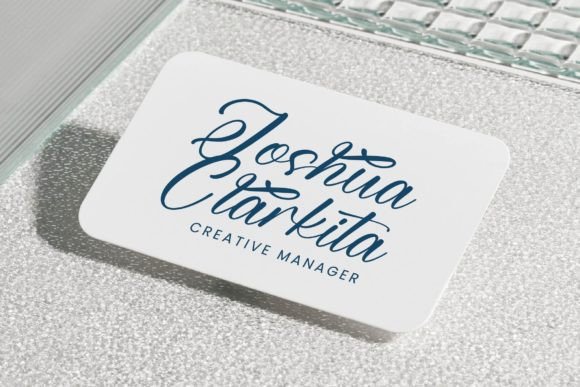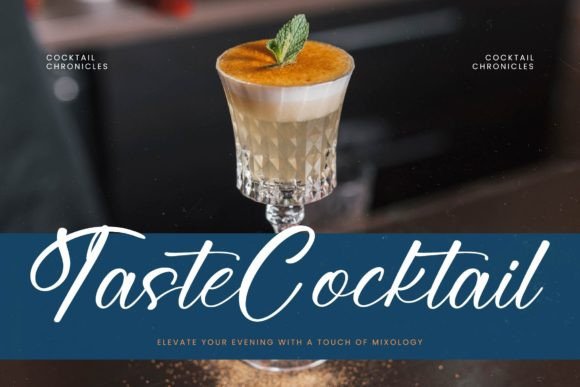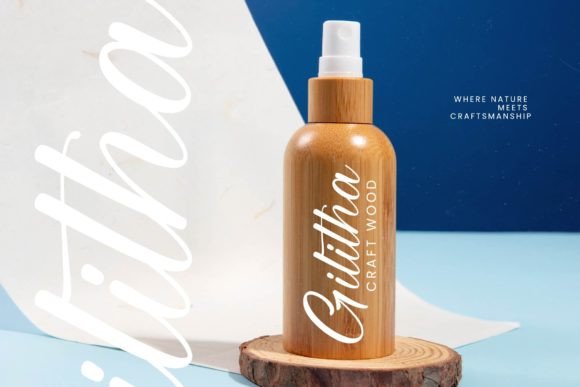
Introduction to Michael Violena Font
Have you ever stared at a blank canvas, waiting for the perfect font to bring your creative project to life? For designers, finding the right typography can be a game-changer. It’s the difference between a good design and a great one. That’s why we’re excited to introduce you to the elegant luxury script font that’s taking the design world by storm: Michael Violena Font.
With its graceful, flowing letters, Michael Violena Font is perfect for adding a touch of sophistication to invitations, logos, and other stylish designs. Whether you’re working on a high-quality design resource or need a free download for a client, this font is a valuable addition to any designer’s toolkit. Plus, its versatility makes it easy to work with, even when creating designs with transparent backgrounds.
Key Features of Michael Violena Font
- High-quality, professional font design suitable for creative projects, including graphic design, digital art, and publishing.
- Features a transparent background, allowing for seamless integration into various design elements and backgrounds.
- Includes a large character set, making it suitable for multilingual designs and projects.
- Has a high resolution, making it ideal for printing and digital applications, including signage, posters, and business cards.
- Designed by a professional font designer, ensuring a unique and consistent aesthetic throughout the font.
Honest Review: Michael Violena Font
As a designer, I’m always on the lookout for high-quality design resources that can elevate my creative projects. Recently, I stumbled upon the Michael Violena Font, and I must say, it’s a great addition to my design toolkit.
- ✨ The font has a unique, elegant design that’s perfect for formal or creative projects.
- ✨ The high-quality vector files make it easy to scale and manipulate without losing any details.
- ⚠️ The font only comes in a transparent background, which may not be ideal for projects that require a solid color background.
- ⚠️ The font is not as versatile as some other fonts, so it may not be suitable for projects that require a lot of customization.
Overall, I’m impressed with the Michael Violena Font. It’s a great choice for designers who need a high-quality, elegant font for their creative projects. While it may have some limitations, the benefits far outweigh the drawbacks. I’d definitely recommend it to fellow designers looking for a reliable design resource.
The Michael Violena Font is a high-quality design resource perfect for any creative project. It features a unique and stylish design, making it ideal for logos, headings, and titles. One of its notable features is its transparent background, allowing for seamless integration with any design element.
Tips for Getting the Most Out of Michael Violena Font
For the best results, use the Michael Violena Font in combination with other high-quality design elements. Experiment with different font sizes, colors, and styles to achieve the desired effect. You can also use the font in conjunction with other design resources, such as graphics and images.
The Michael Violena Font is suitable for a wide range of creative projects, including logos, headings, titles, and marketing materials. Its unique design and transparent background make it an ideal choice for modern and stylish designs.